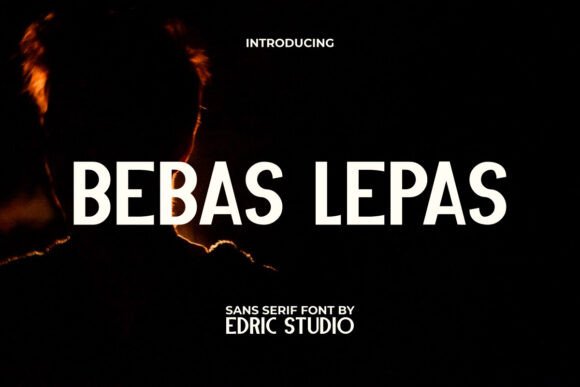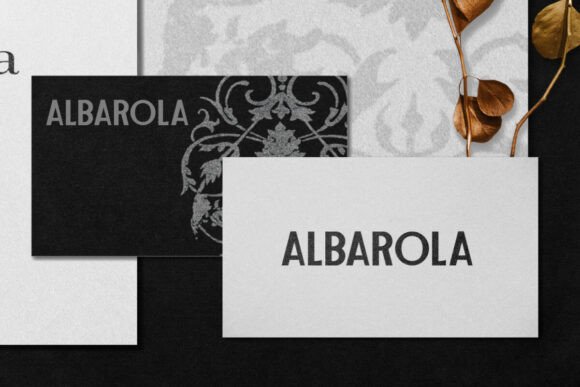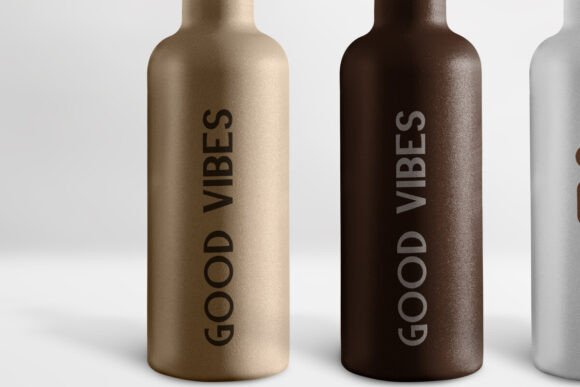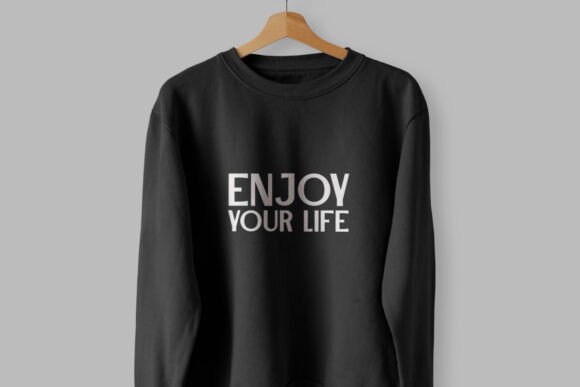
Bebas Lepas Font
About the Bebas Lepas Font
Meet Bebas Lepas Font, a stunning font that brings a touch of elegance and professionalism to any design. Bebas Lepas Font is a modern display font with a versatile style. The style of this font may be shared by many fonts in general, but it will never get old and is still a favorite of many people. It will be suitable for any business, such as accessories, cafe, entertainment, event organizer, fashion, food and beverage, men’s product, photography, printing, publishing, sport, writer, and many more!